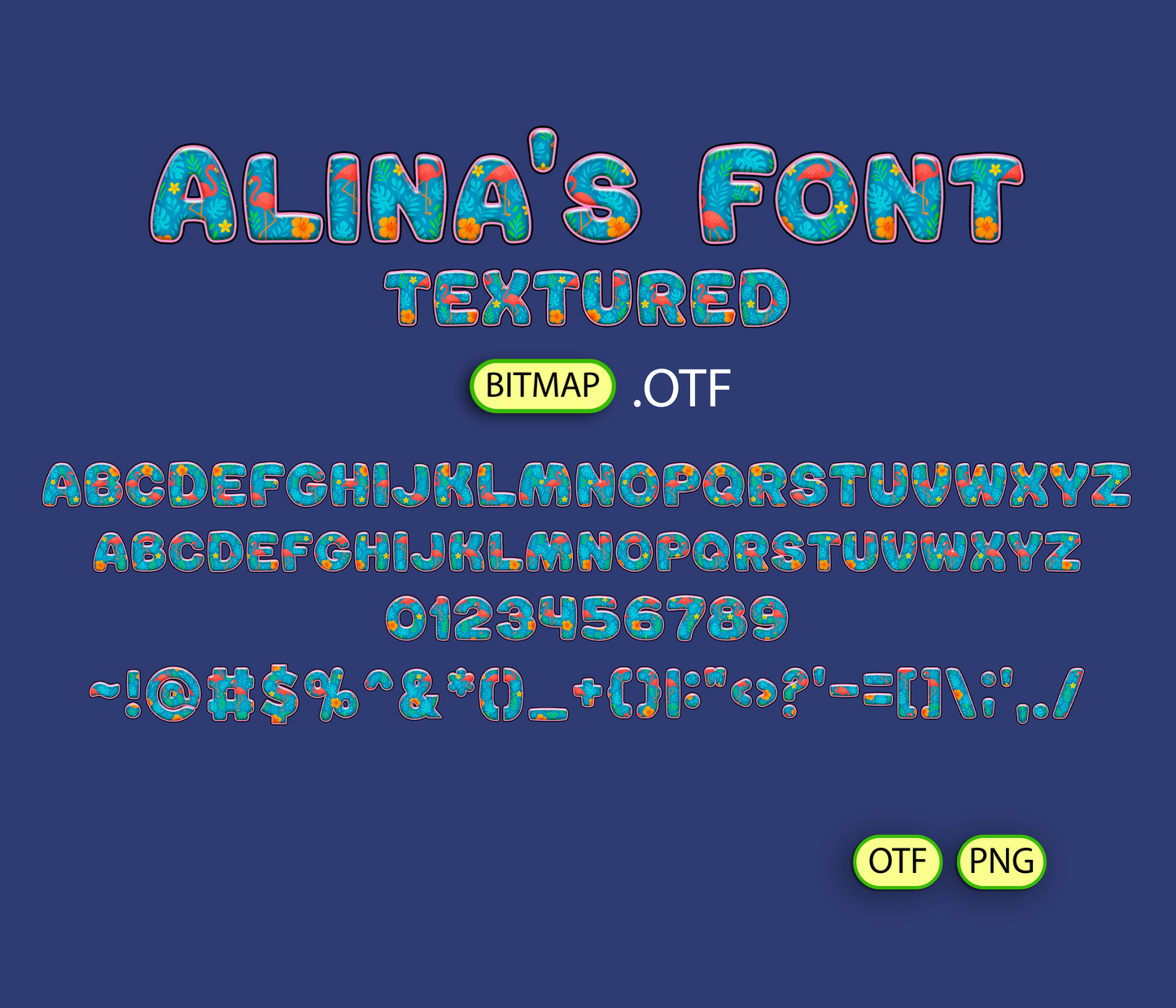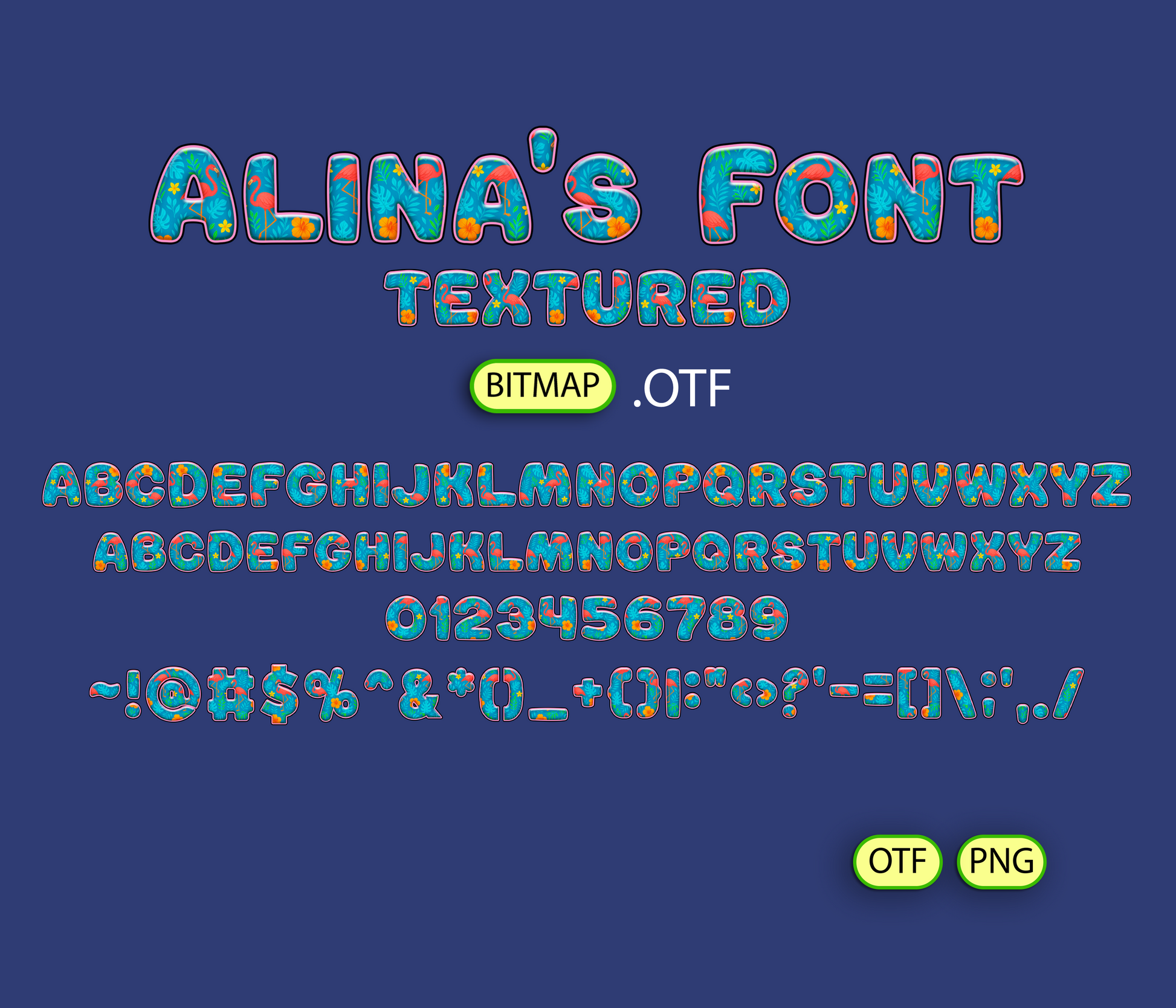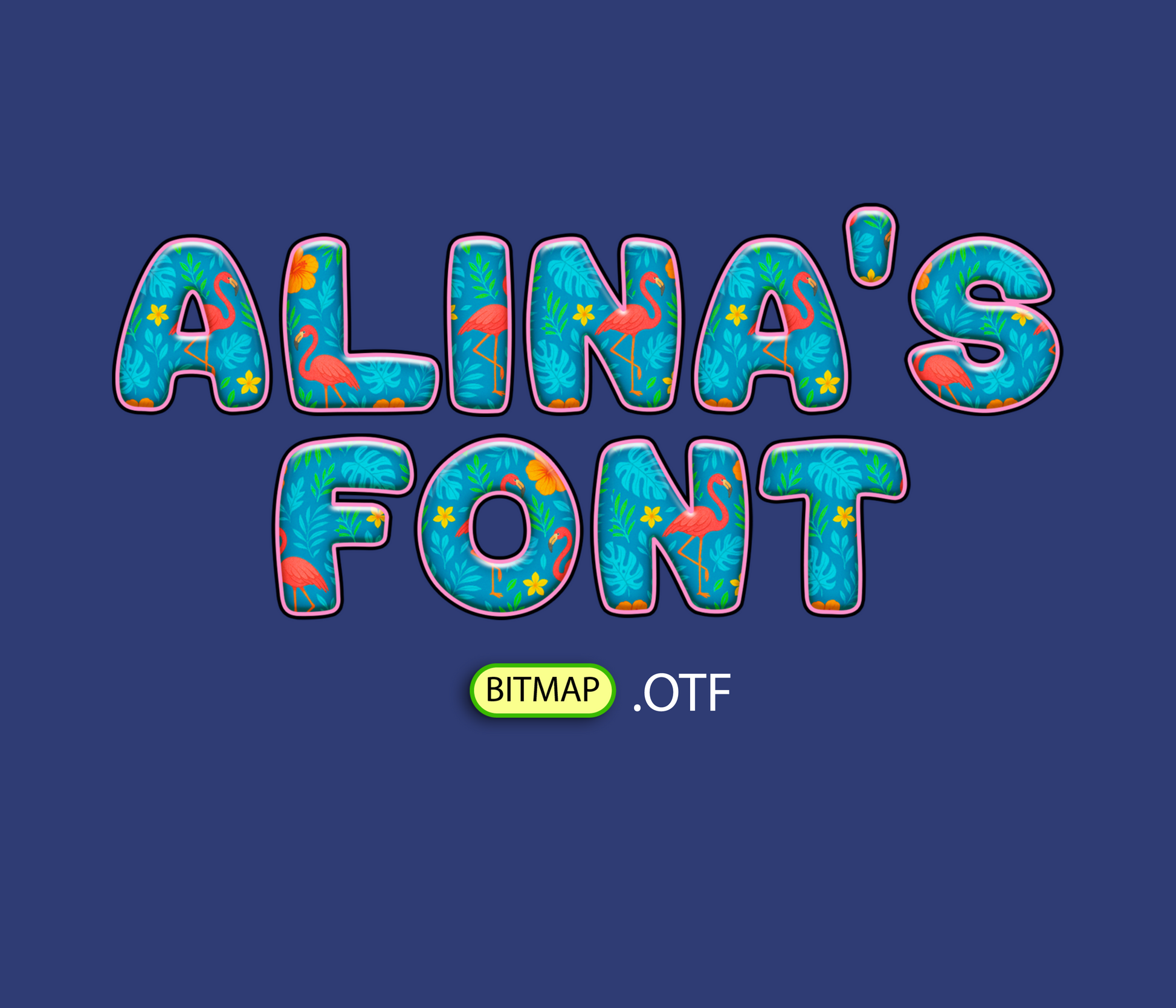
FREE Aloha Islands Pattern Font
Aloha Islands Typeface Textured
Dive into the breathtaking realm of Pacific paradise with our Aloha Islands Typeface, capturing the spirit of volcanic sunsets, pristine shores, and tropical tranquility. Perfect for hospitality ventures, adventure tour companies, beachfront cafes, and design enthusiasts, this font delivers the carefree, sun-drenched essence of Hawaiian coastlines to your creations. Craft captivating displays, island-inspired merchandise, or online content with the warm, breezy atmosphere of trade winds and hibiscus blooms.
Our Aloha Islands Typeface showcases smooth, surf-inspired forms and casual characters embodying the serene yet lively spirit of archipelago living. Ideal for:
- Hospitality Industry: Develop eye-catching branding, product packaging, and marketing materials for beach hotels, tiki bars, and island boutiques
- Youth Design: Excellent for vacation storybooks, luau party supplies, and educational resources that showcase marine exploration
- Online Presence: Upgrade websites, blogs, and social platforms with island-themed titles and visuals that convey coastal bliss and exploration
- Learning Materials: Infuse genuine flair into Polynesian content, destination brochures, and advertising for exotic getaways
- Creative Endeavors: Add beachside appeal to invitations, DIY projects, and interior design inspired by the beauty of coral reefs and coconut groves